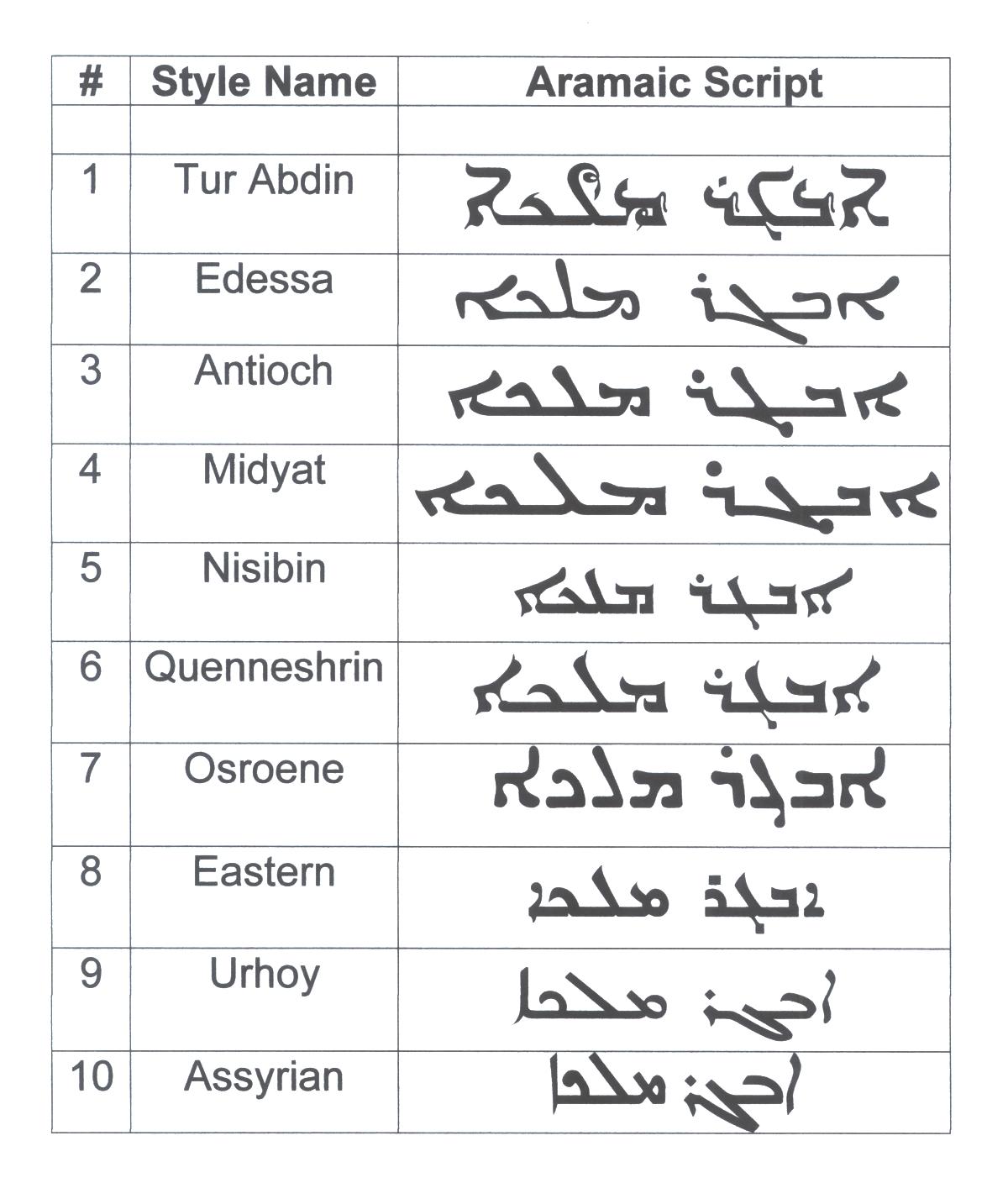
finally a reminder these scripts are related to otherd!
More Aramaic and Syriac Script Images
I've googlehunted for what seem to be the best and clearest images of these scripts for you to enjoy!
What Jesus wrote
No one knows for certain what languages Jesus wrote and spoke.
Aramaic yes but maybe Hebrew and Greek as well?
This image is edited from an inscription with the name Yeshua in Aramaic.
Here's an example of the related Syraic script used in a mosaic.
Here's S-L-M in Hebrew Arabic and Aramiac in modern calligraphy.
Note the related forms !
Finally some more examples of Aramaic to finish off !